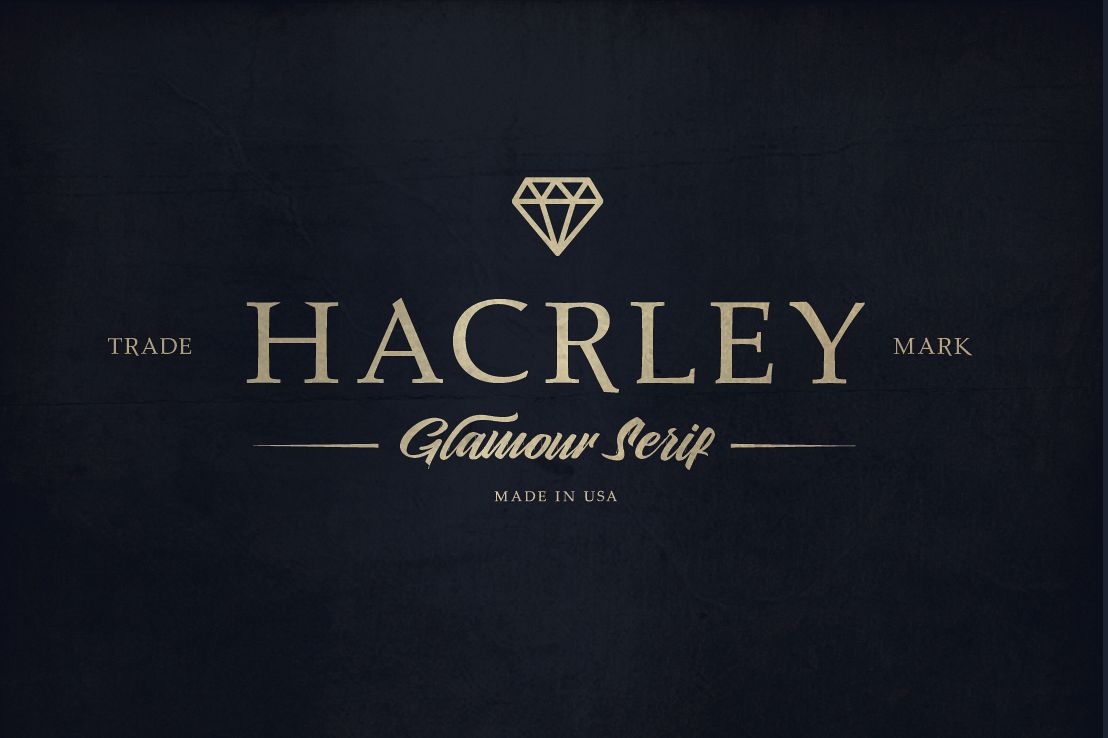
Hacrley Serif
Harcley is a serif that is decorative and antique and elegant. The neat and beautiful font shape makes this font easy to remember as a modern font.Harcley making it a versatile type that can be used in various projects. No matter what type of project you are working on, this font can help you simplify your work.This font is very representative of vintage modern and minimalist way.This font is multi functional, perfect for logo design, magazine, poster, packaging, christmas gift, wedding, or elegant invitation card.Include :